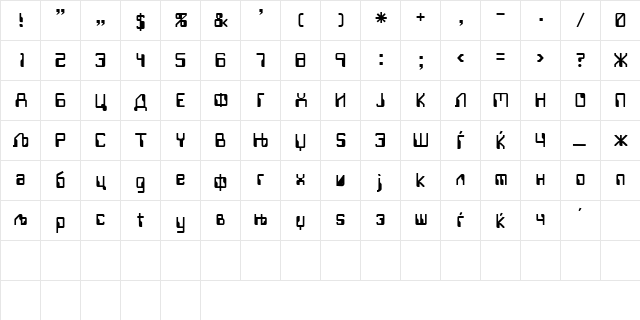
X_Futura Normal
Design Context for X_Futura Typeface
X_Futura channels digital-age aesthetics through its sharp, structured letterforms — ideal for brands that want to signal innovation.
Pro Tip: Use X_Futura in combination with a neutral sans for body text. Let it define the brand voice in headlines while keeping reading comfortable elsewhere.